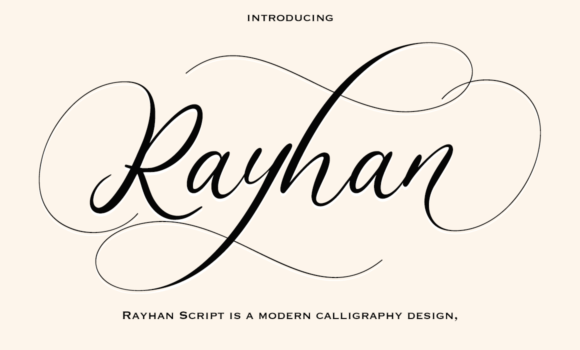
Rayhan Font – Free Download Introduction to Rayhan Font Rayhan Script is a modern calligraphy design, including Regular. 📸 Preview Gallery 6 images 📌 Product Name Rayhan Font 👤 Author cocodesign 📂 Category Explore ⬇️ Download Rayhan Font FREE Free